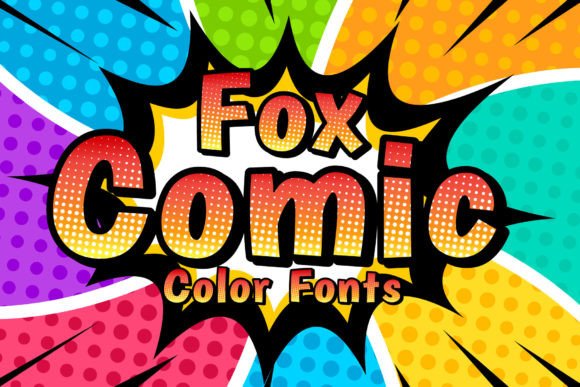
Introducing Fox Comic Font, the ultimate choice for comic dialogue! Created by the talented Fox7, this vibrant and playful font is a must-have for anyone looking to add a touch of excitement to their designs.
With its unique and eye-catching colorful style, Fox Comic Font instantly grabs attention and brings life to any text. Whether you're creating captivating titles, engaging comic strips, or even just adding a fun twist to your social media posts, this font is guaranteed to captivate your audience.
One of the key features of Fox Comic Font is its ability to add a dramatic emphasis to your words. Each character is carefully designed to convey a sense of energy and dynamism, making your text truly stand out. Say goodbye to boring and ordinary fonts, and embrace the bold and vibrant nature of Fox Comic Font.
Not only does Fox Comic Font excel in aesthetics, but it also offers a wide range of versatility. No matter the topic or theme, this font effortlessly adapts and enhances any creation. From humorous dialogues to action-packed illustrations, the possibilities are endless with Fox Comic Font.
But don't just take our word for it - let your creativity soar with this delightful font. Unleash your inner artist and watch as your designs come to life with the help of Fox Comic Font. Its playful and energetic vibe will surely leave a lasting impression on your audience.
In conclusion, Fox Comic Font is the best font for comic dialogue, offering a perfect blend of color, playfulness, and versatility. Add a touch of drama and vibrancy to your designs and let your imagination run wild. Don't miss out on this incredible opportunity to enhance your font library - download Fox Comic Font now!